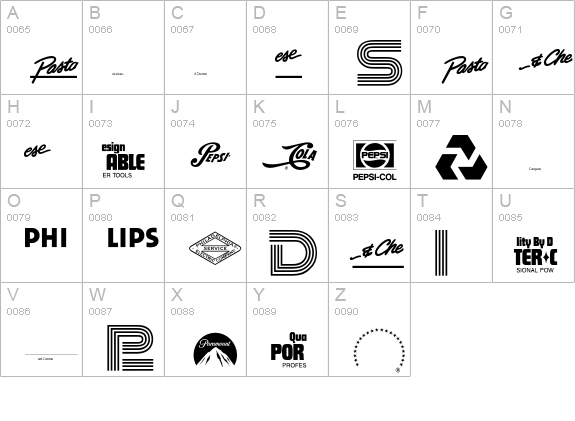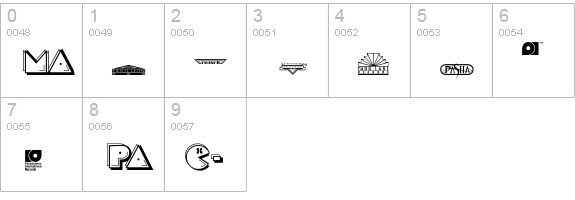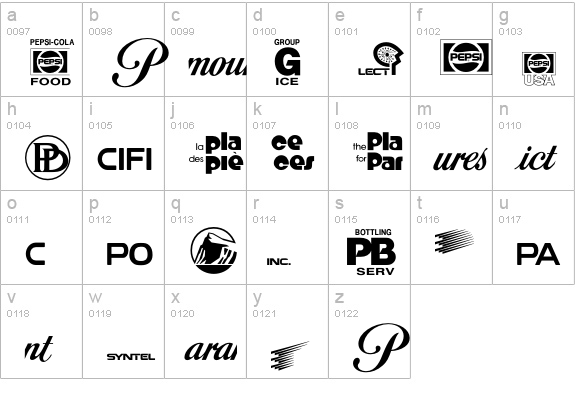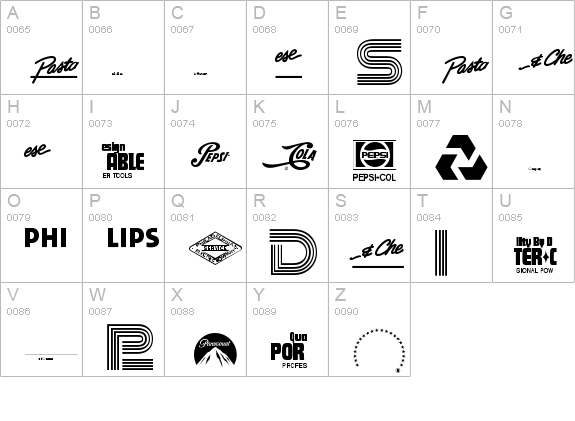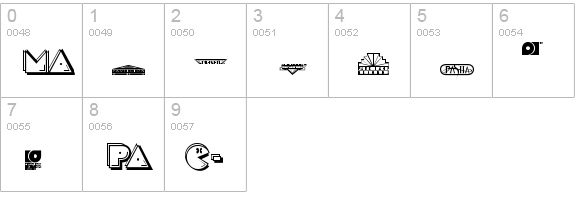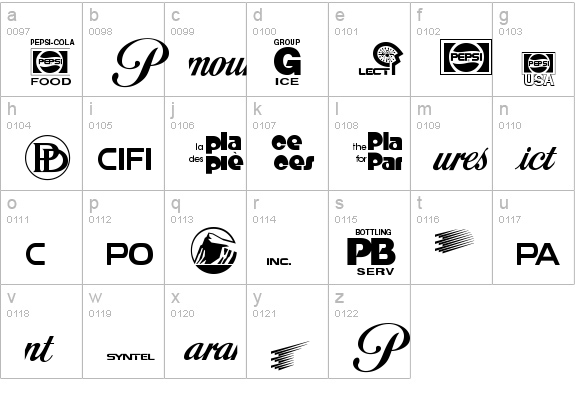
LogosCompanyP14 Font Details
LogosCompanyP14 font is a modern and versatile typeface that offers a perfect blend of elegance and professionalism. This unique font is characterized by its clean lines, balanced proportions, and sleek design that make it suitable for a wide range of projects. Whether you are creating a logo, branding materials, or any other creative work, LogosCompanyP14 font is sure to make a lasting impression. The best part? LogosCompanyP14 font is available for free download at FontsMarket.com. This means you can easily access this high-quality font without any cost, making it a great choice for both personal and commercial use. Don't miss out on the opportunity to enhance your designs with the stylish and sophisticated LogosCompanyP14 font today!